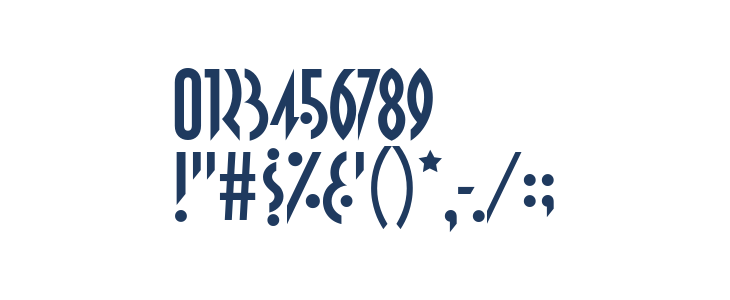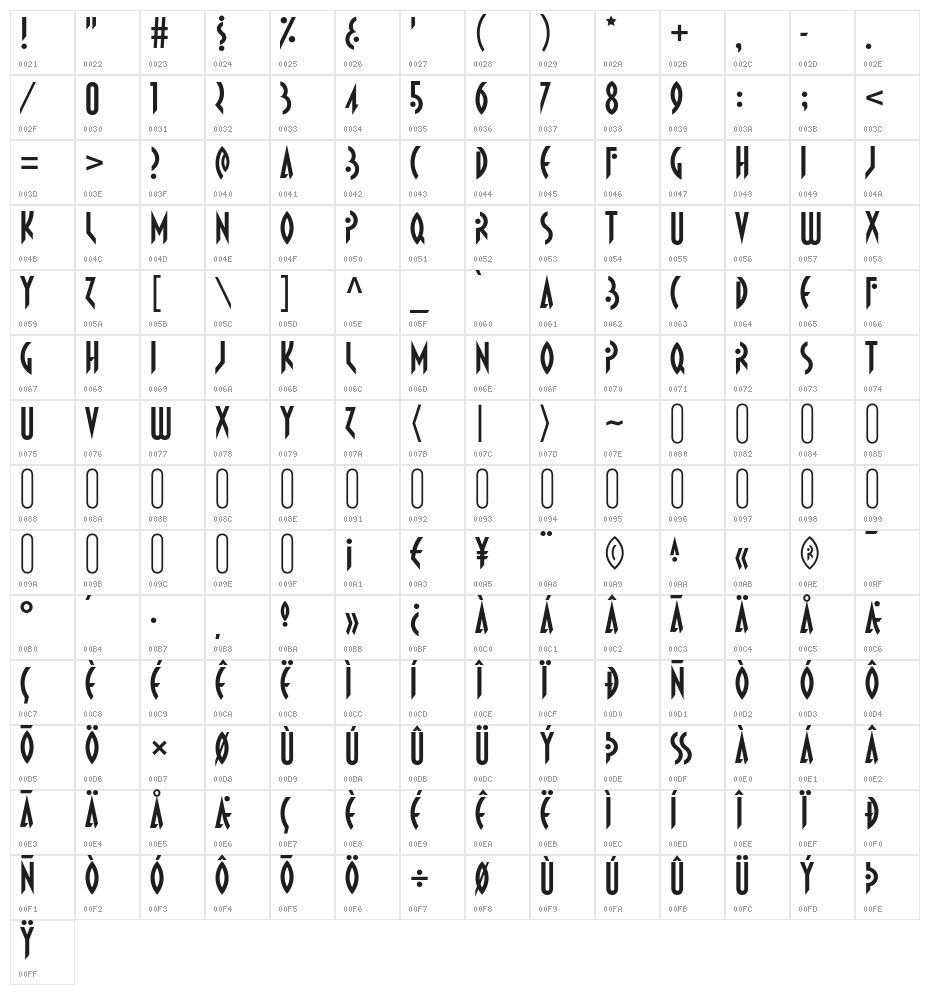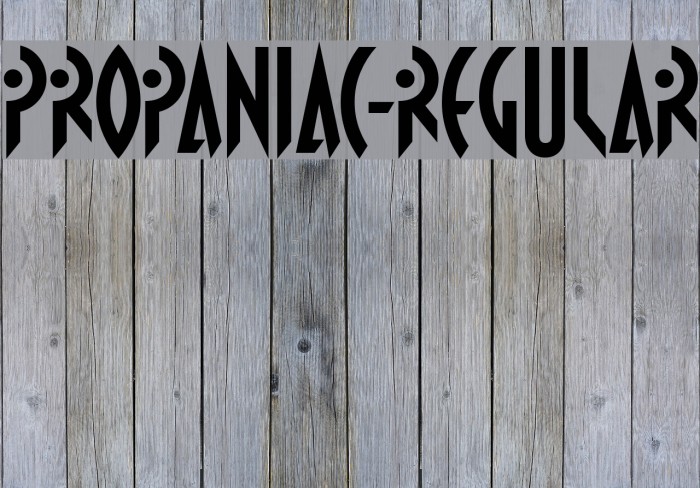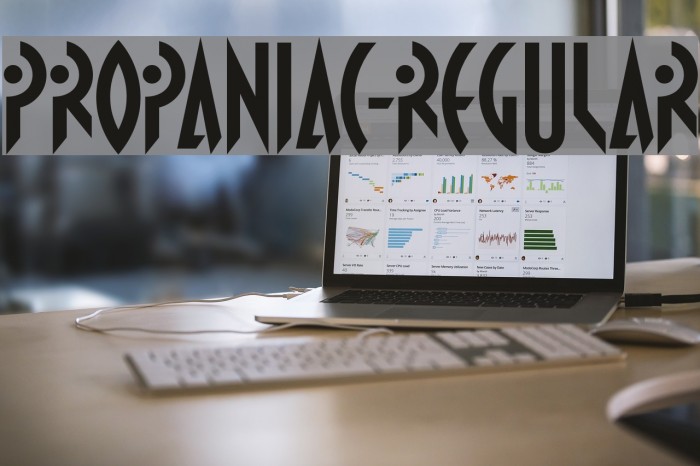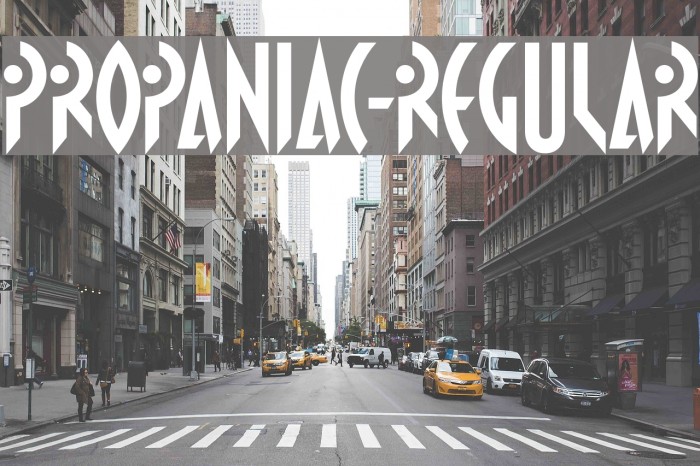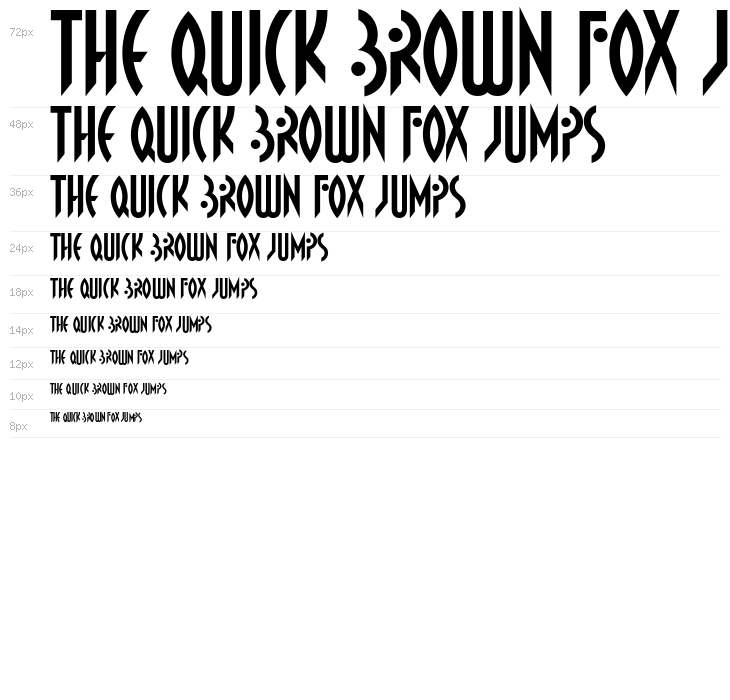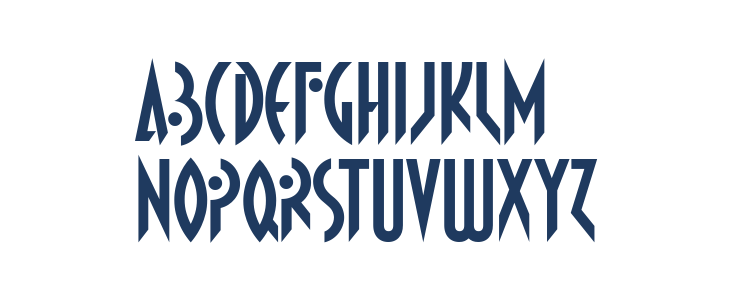
Propaniac-Regular Font
Propaniac-Regular Description
This font features a bold, geometric design with sharp angles and unique circular cutouts within the characters, giving it a futuristic and avant-garde appearance. The uppercase letters are particularly striking, with a consistent height and width, creating a uniform and cohesive look. The lowercase letters maintain the same geometric style, ensuring readability while retaining the font's distinct character. Numbers and special characters are designed to match the bold and angular aesthetic, making them stand out. The overall design is highly decorative, making it suitable for eye-catching headlines and artistic projects.
| Overall Style | Modern, Futuristic |
| Proposed Projects | This font is perfect for projects that require a futuristic or avant-garde look, such as posters, album covers, branding for tech companies, or any creative design that aims to capture attention. |